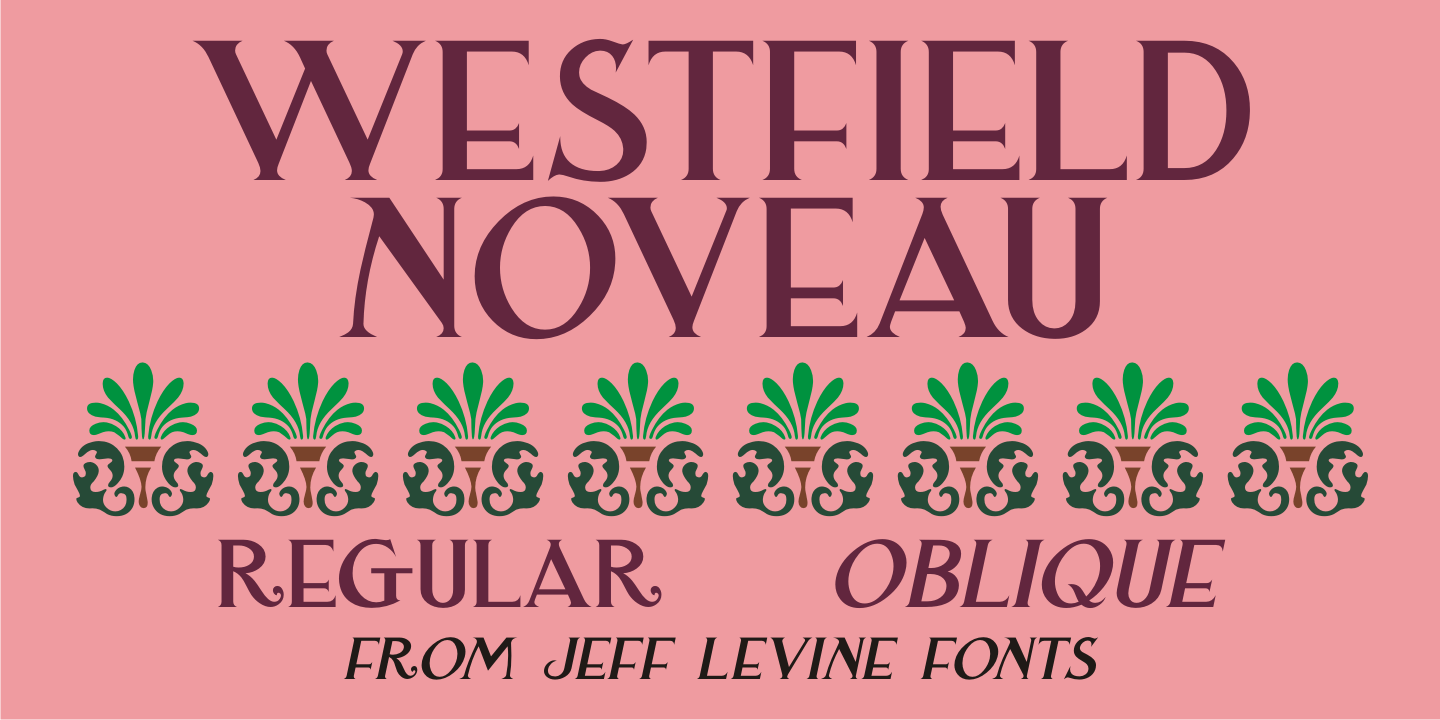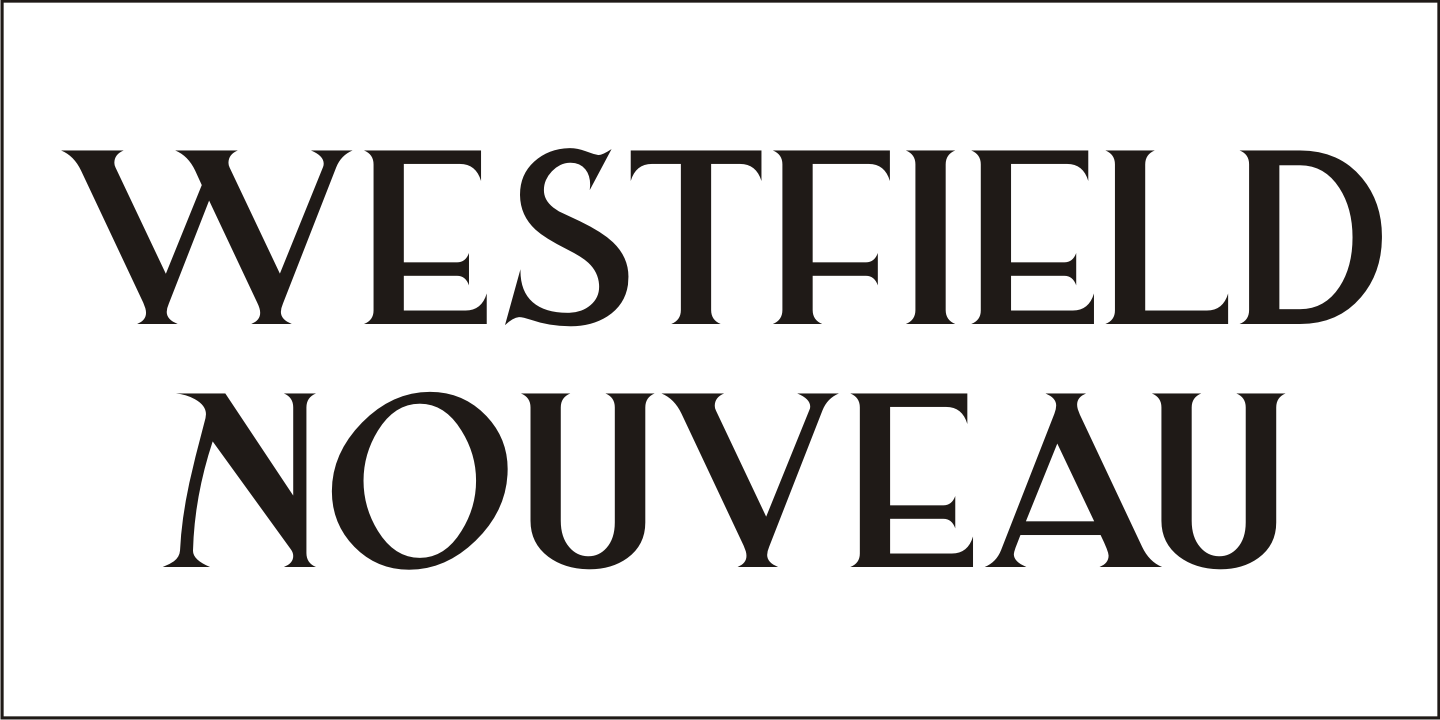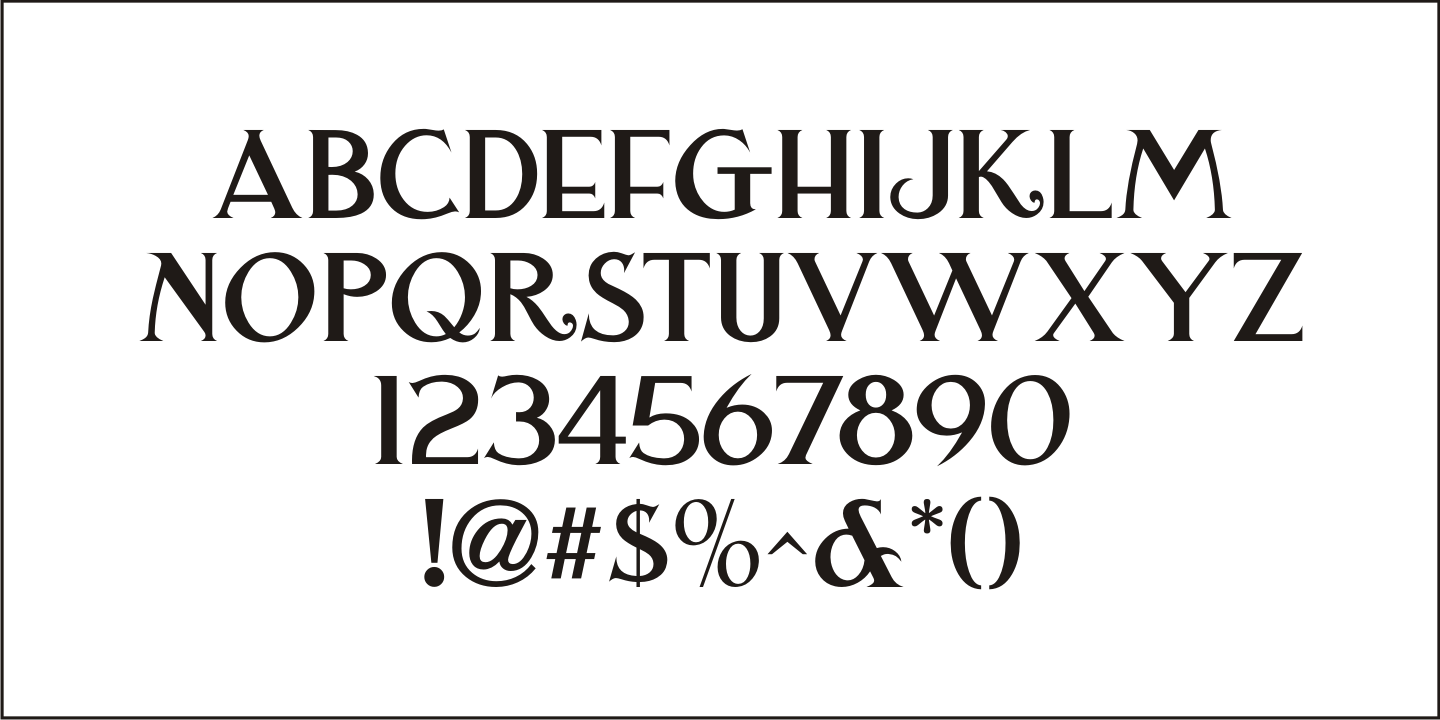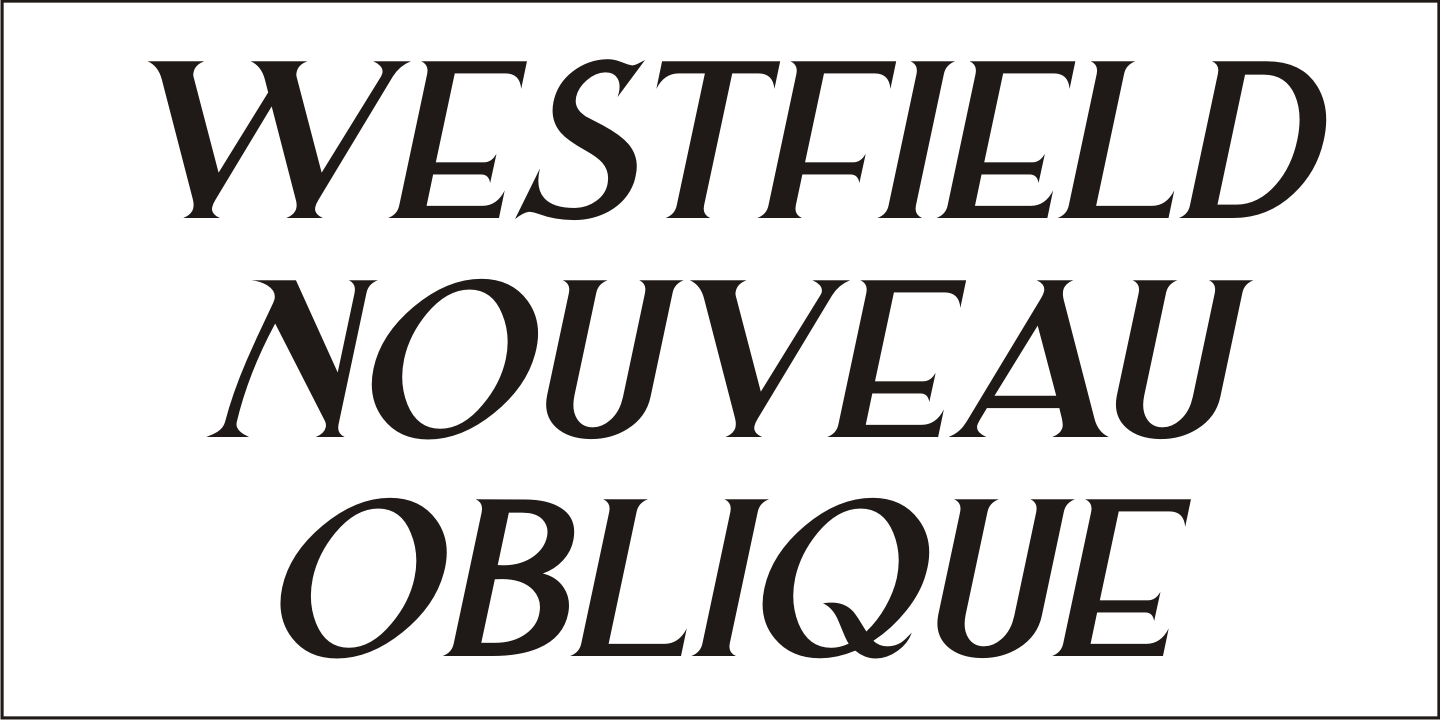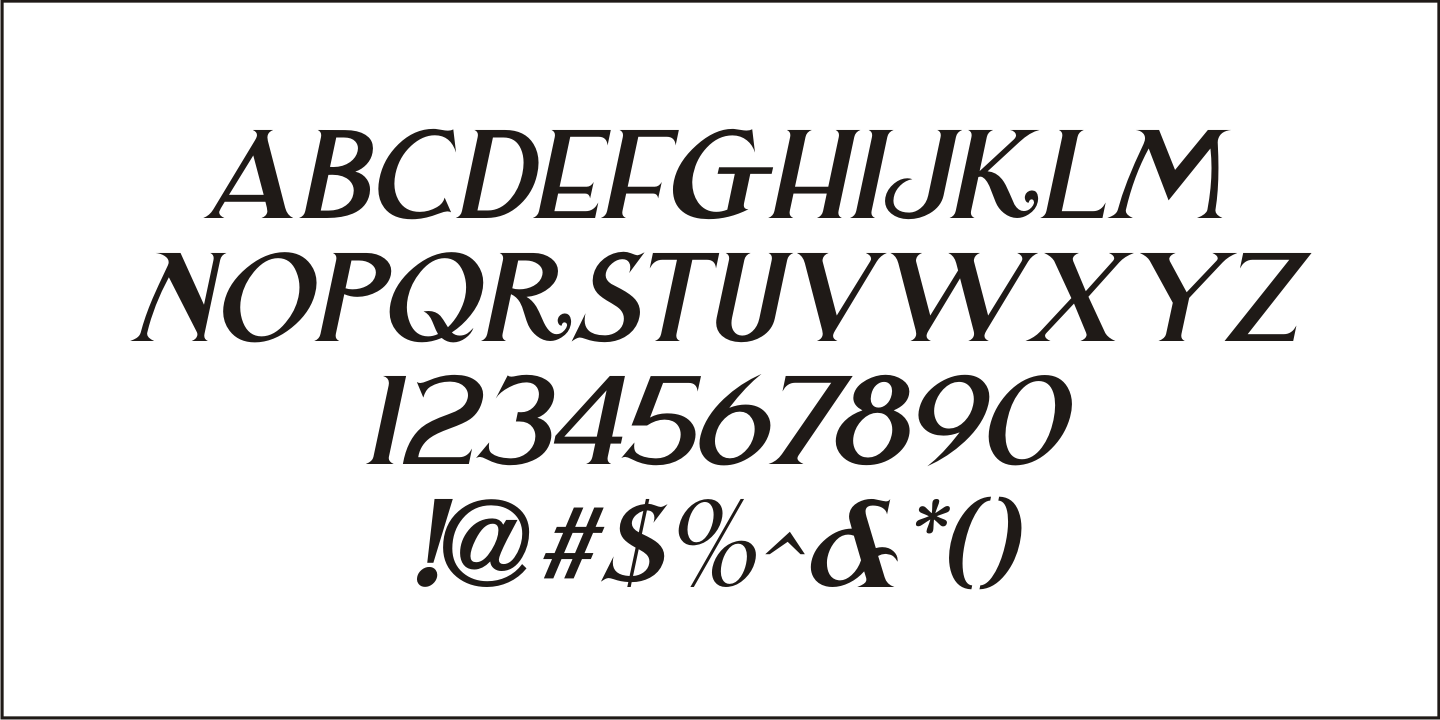
Westfield Nouveau
The hand lettered song title on the sheet music for 1918's 'N' Everything (from the Al Jolson show 'Sinbad') was the inspiration and model for Westfield Nouveau JNL, which is available in both regular and oblique versions.
Westfield Nouveau by Jeff Levine Fonts